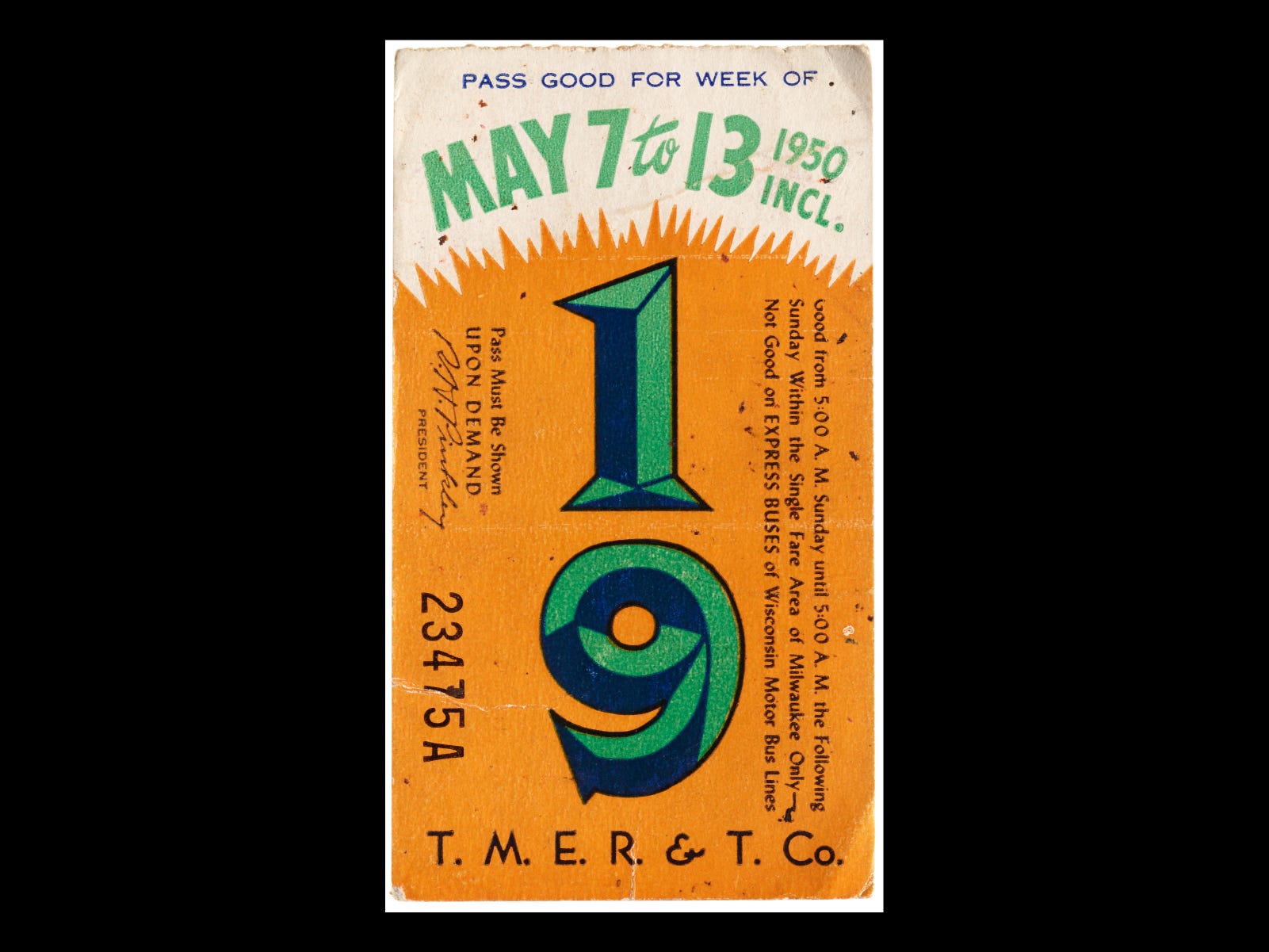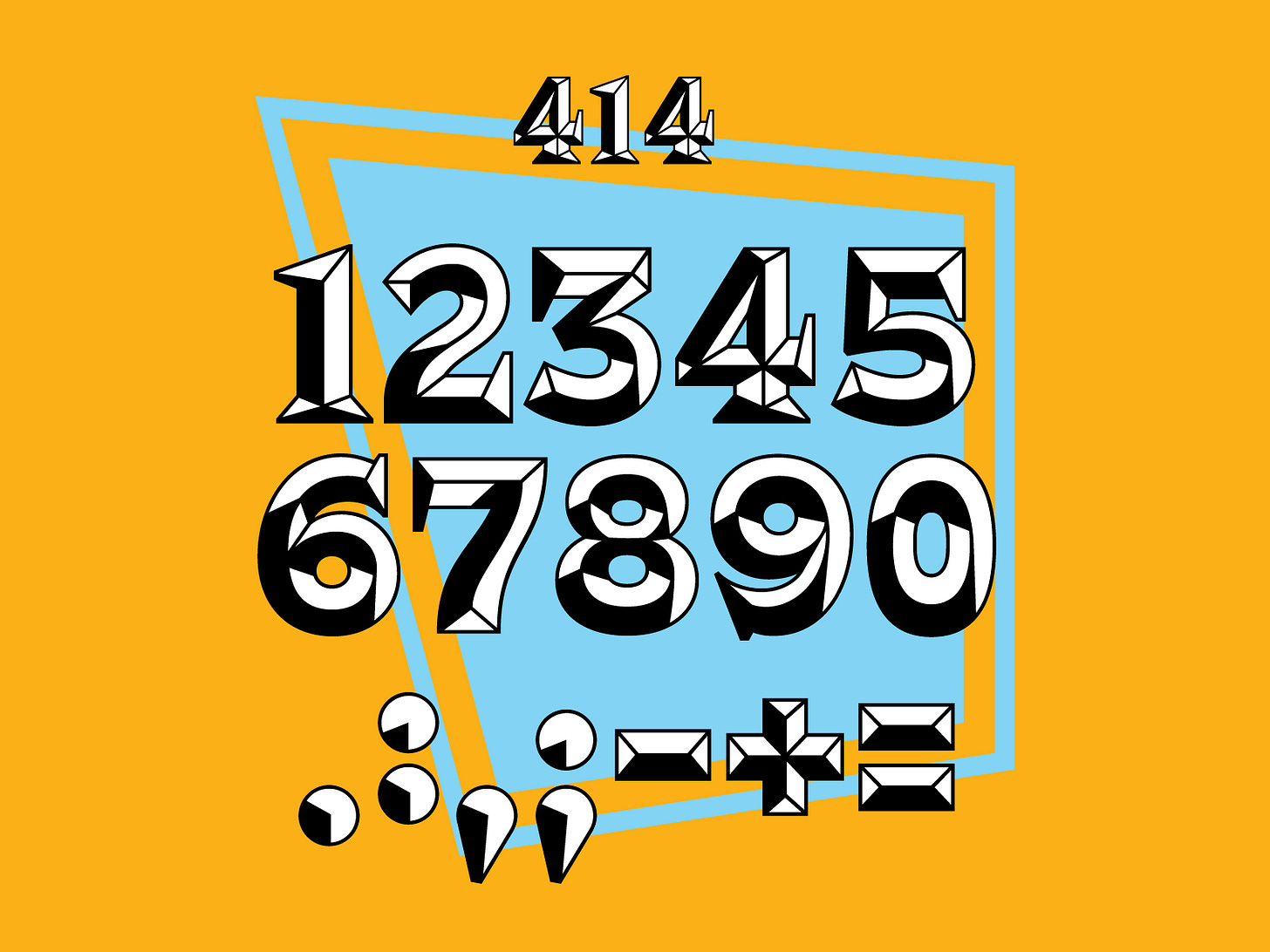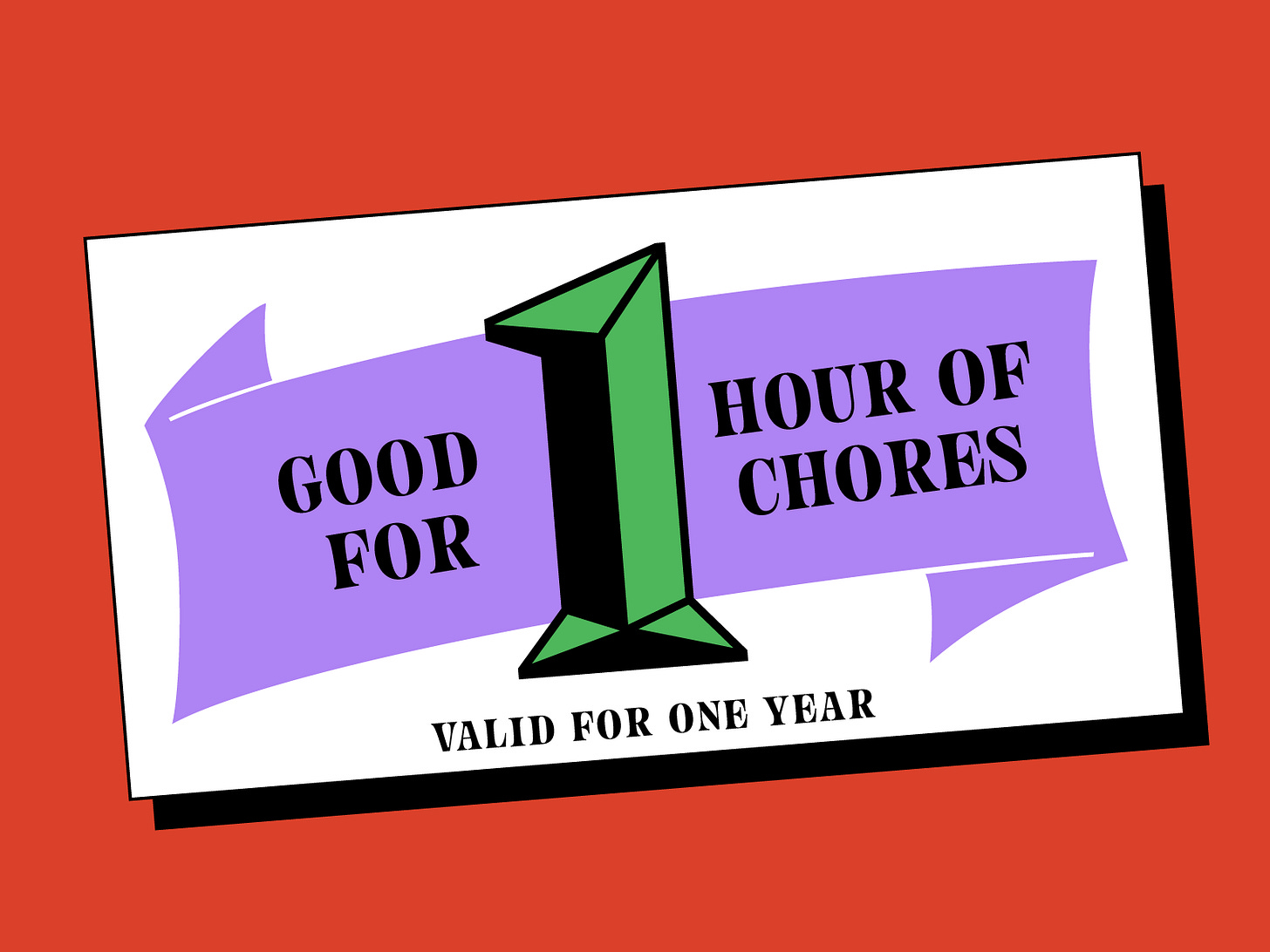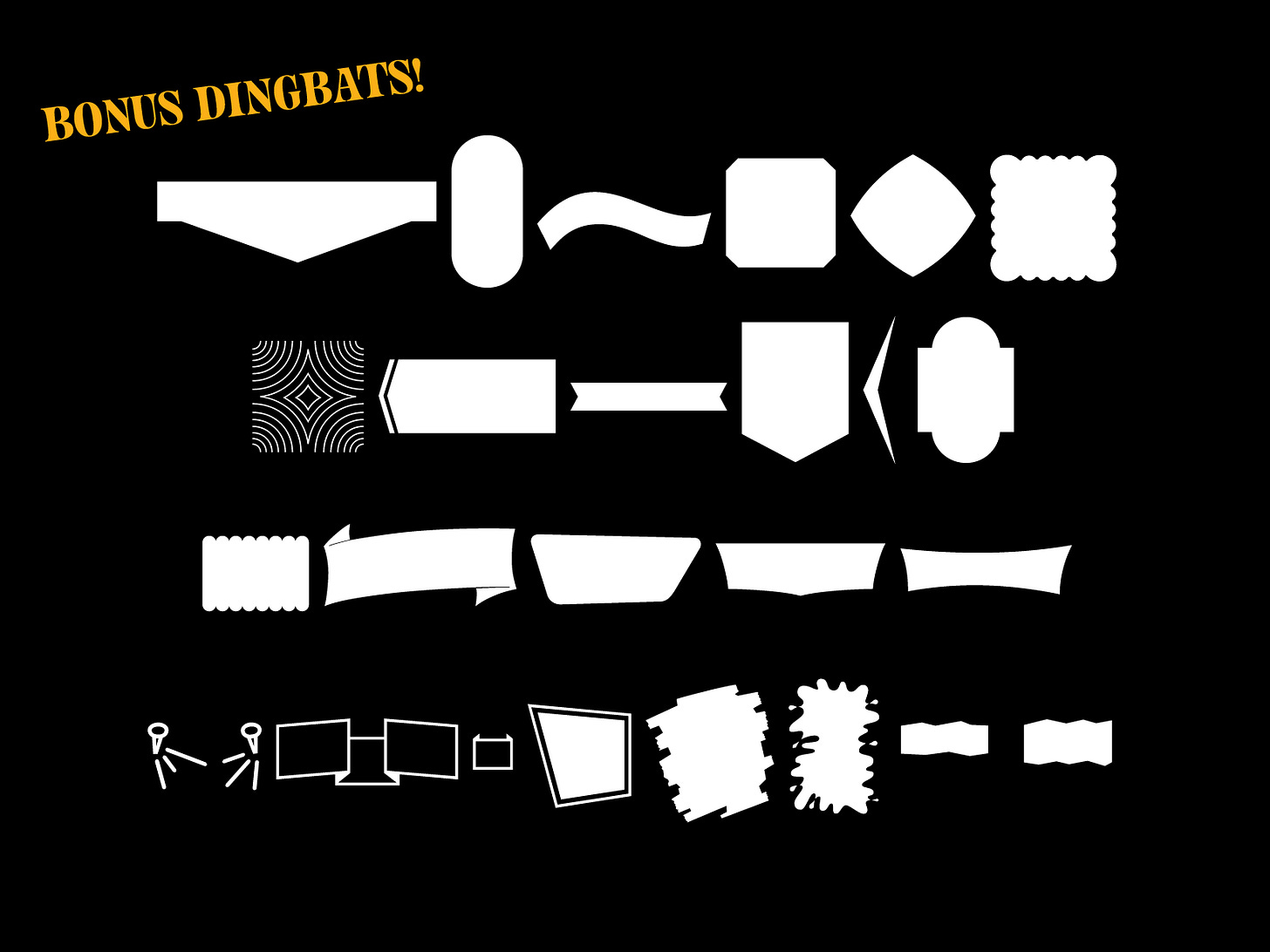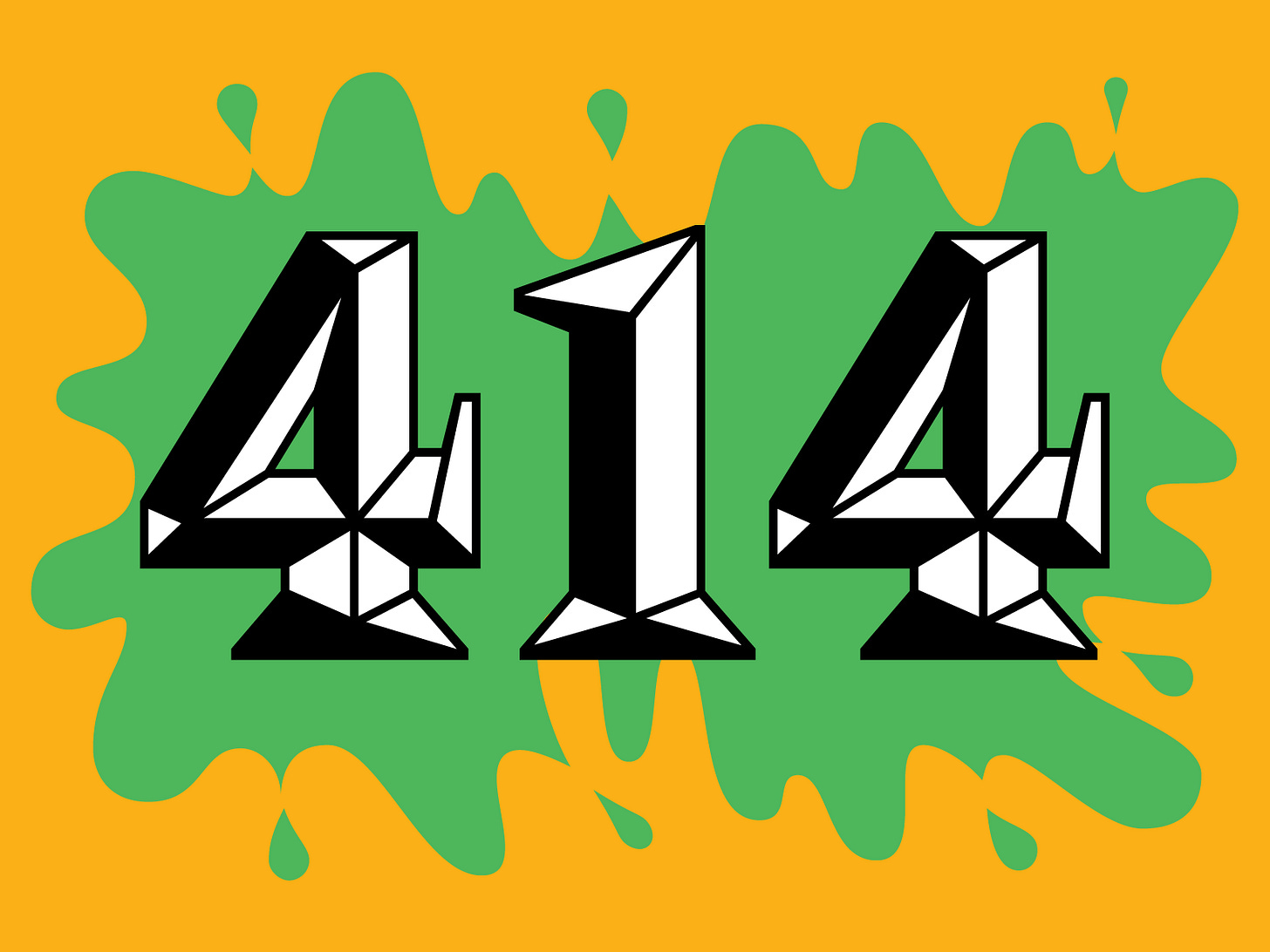
Week 46: 414
The 411 on the 414
I hope you all had a great week. I am very pleased with my project for this week as numbers are outside of my comfort zone. I’ve truly been avoiding them for this whole project. All credit goes to my sweet friend, Lauren, who requested I do something fun with these Milwaukee Transit Passes!
Can we talk about these for a second? Like who designed the first one? How did they have the budget to make every single one so colorful and unique?? I’d love to meet someone from the design team back then and have them teach me everything they know. My guess, not based in reality whatsoever, was that some ex-illustrator took a government “graphic artist” gig strictly for the benefits (maybe because they got married or had a baby) and became so bored that they badgered their boss into letting them have a little fun with this project. I hope they got the kudos they deserved.
When I was starting this project, I struggled so hard to figure out which direction to go. There’s so much content within these transit passes! I almost tried to do 2 sets of numbers which I quickly realized was unrealistic. Ultimately, I settled for one set of numbers with a 3D style and a set of dingbats. I could absolutely not ignore the playful layouts and quirky background shapes.
The process went as all revivals do: an overly optimistic start, followed by existential dread/problem-solving, and then trying to “make it my own”. The real struggle with these numbers was where to put the serifs. Based on my numbers research, the rule is that there are no rules. Everyone approaches serifs on numbers differently! Maybe I’m wrong and I missed that day of type school?? I had to have 2 whole friends look at my numbers to reassure me that they weren’t horrible. Probably dramatic but it definitely made me feel better.
All in all, I had a great time making these. Anything Wisconsin related is very sentimental for me (that’s where I went to college). And I fully relate to the poor bastard who had to bust their rump on a weekly basis. Worth it tho!!! Please use these — I made them for you! Also read this article about them and visit the Letterform Archive if you ever get the chance!!